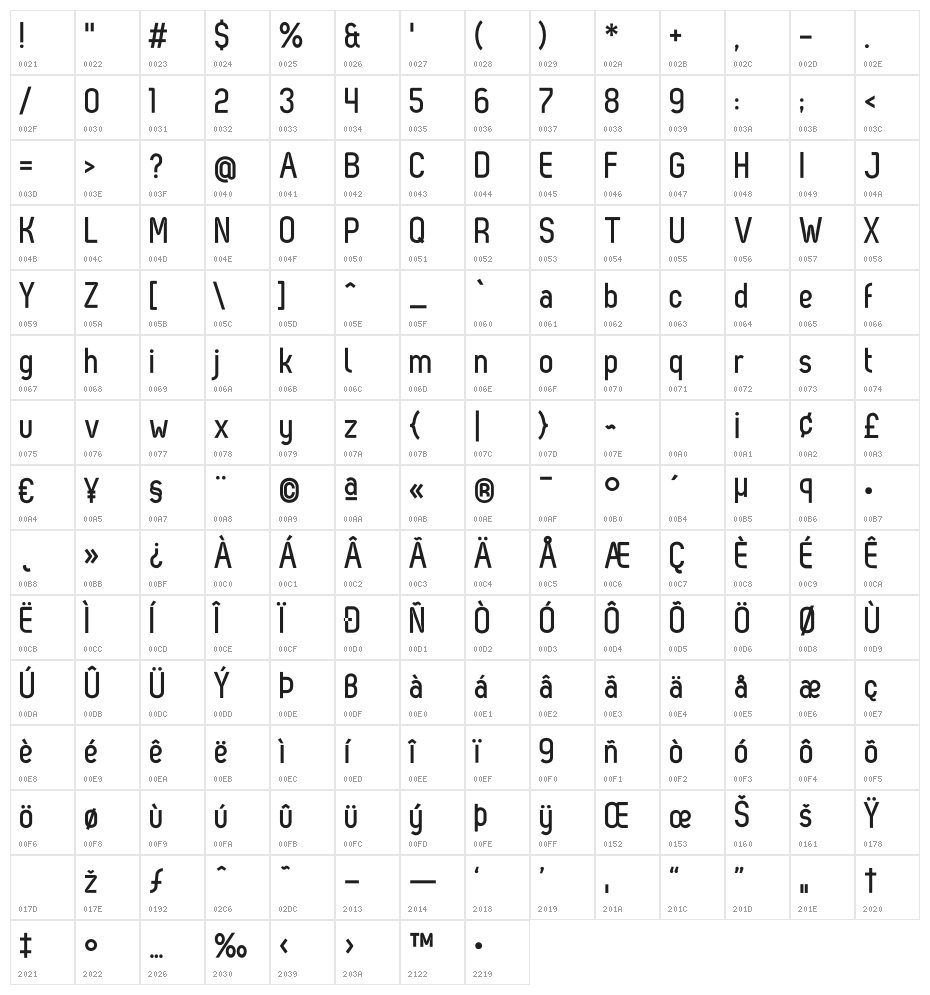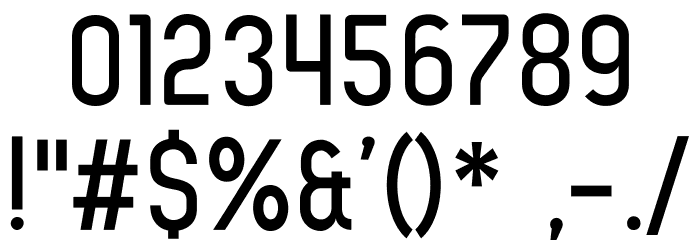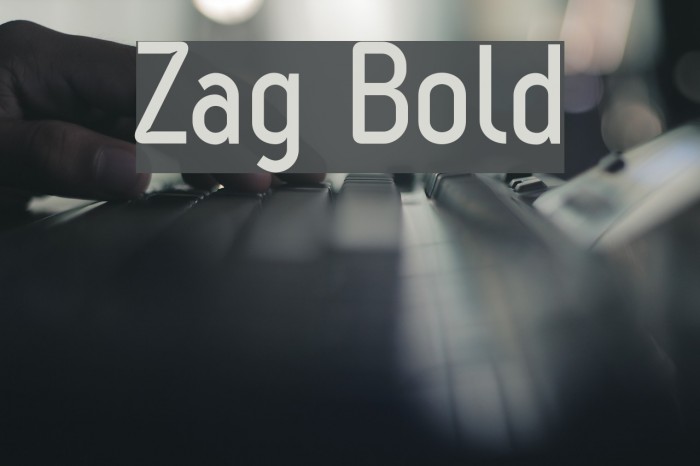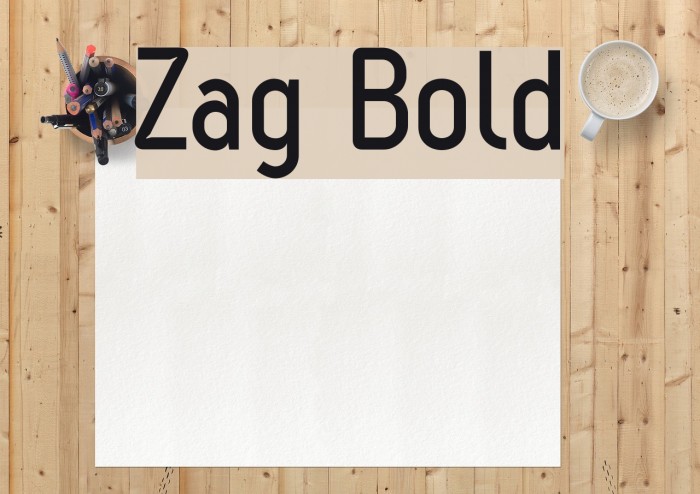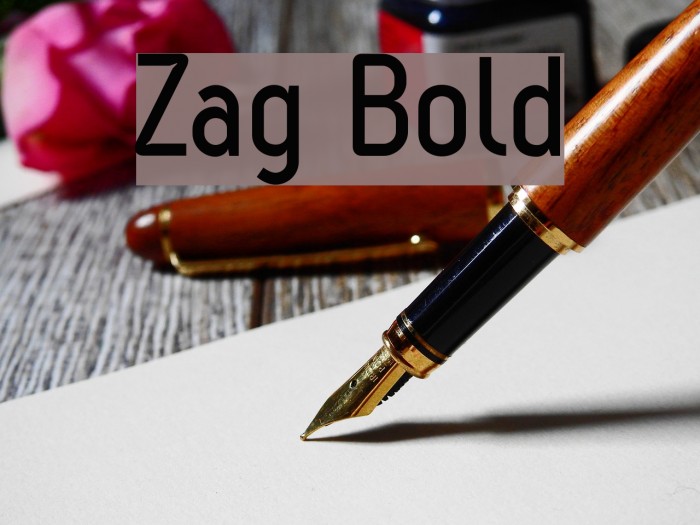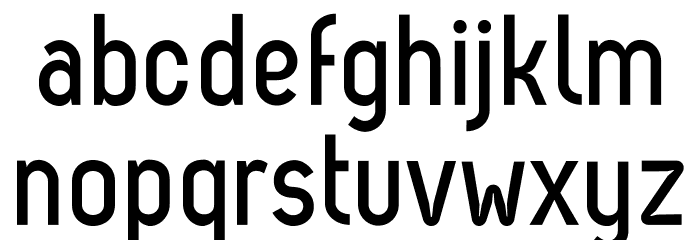
Zag Bold Font
Zag Bold Description
This font features a bold and modern sans-serif style with clean, geometric lines. The characters are uniform in width, providing a balanced and structured appearance. The uppercase letters are tall and commanding, while the lowercase letters maintain a consistent height, enhancing readability. The numerals are clear and distinct, making them suitable for various applications. Special characters are well-defined, adding versatility to the font. The overall design is sleek and contemporary, making it ideal for projects that require a strong visual impact.
ZAG-BOLD UPPERCASE
ZAG-BOLD LOWERCASE
ZAG-BOLD OTHER CHARS
| Proposed Projects | Ideal for branding, headlines, posters, and digital media where a strong, modern look is desired. |